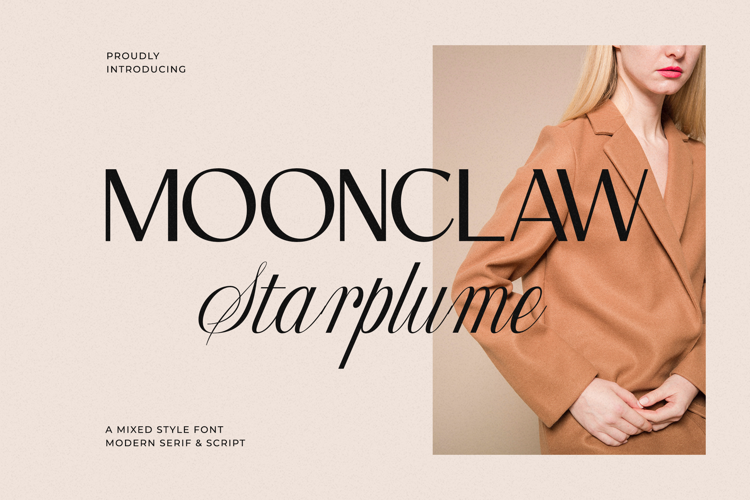
MOONCLAW Starplume Font
About MOONCLAW Starplume Font
Moonclaw Starplume is a mixed style font.
No matter the topic, this font will be an incredible asset to your fonts’ library, as it has the potential to elevate any creation.